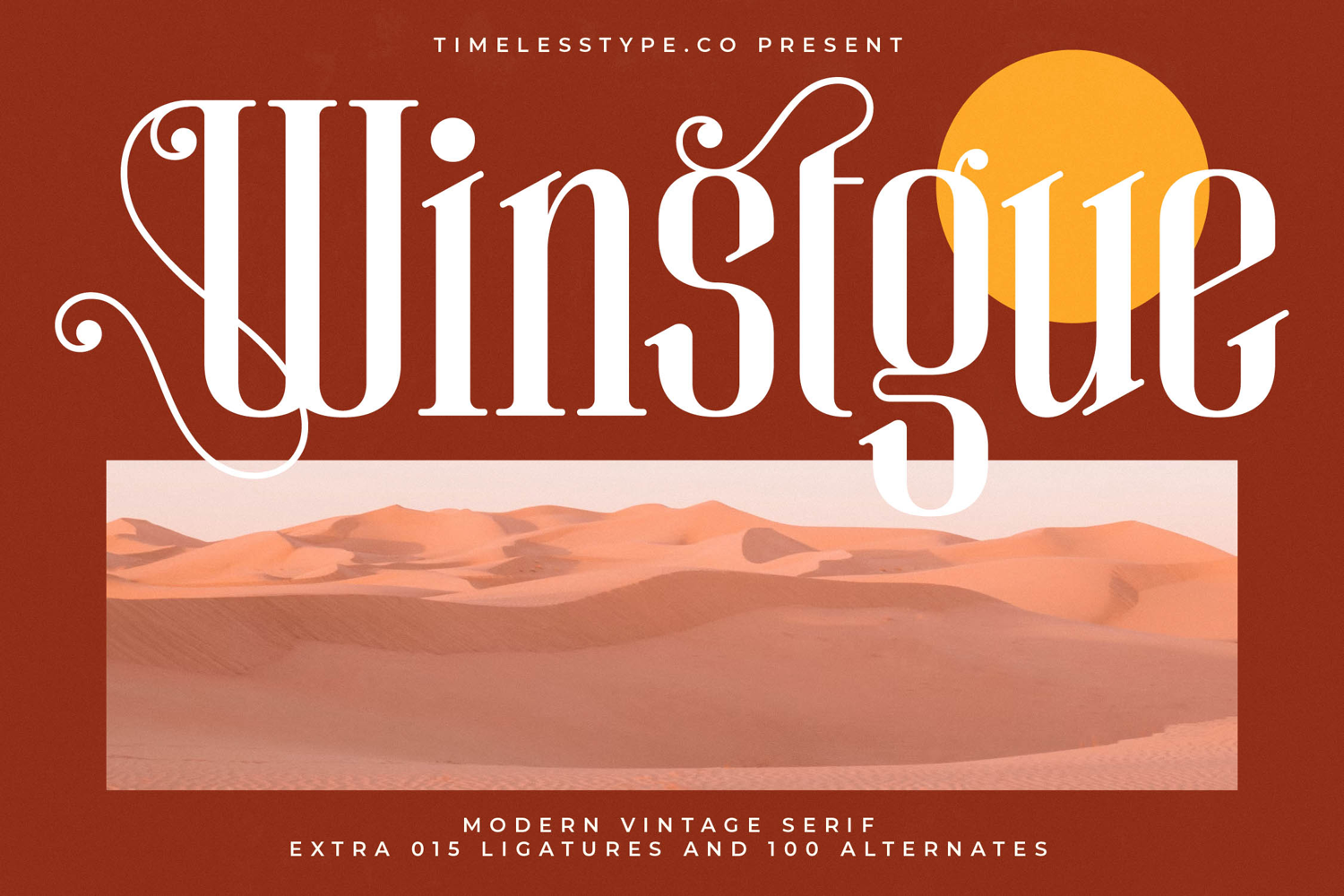
Winstgue - Modern Vintage Serif
Discover the essence of timeless elegance redefined with Font Winstgue - Modern Vintage Serif Serif Display. This captivating typeface masterfully blends the rich heritage of classic serifs with a contemporary aesthetic, featuring striking high-contrast letterforms and an inherent sense of sophistication. Its refined curves and bold presence make it an exceptional choice for any project aiming to convey a luxurious and premium brand identity.
Unlock unparalleled creative possibilities with Font Winstgue - Modern Vintage Serif Serif Display. Beyond its inherent beauty, this font is equipped with an extensive suite of design assets, including 15 elegant ligatures and 100 distinct alternates. These meticulously crafted features empower designers to sculpt truly unique headlines, distinctive logotypes, and bespoke branding elements that resonate with an air of exclusive artistry and versatile appeal.
Designed for the modern, interconnected world, Font Winstgue - Modern Vintage Serif Serif Display ensures your message transcends geographical boundaries. With its extensive multilingual support, Font Winstgue - Modern Vintage Serif Serif Display adapts seamlessly across global markets, making it incredibly versatile for international projects. This global compatibility empowers brands to maintain a consistent, high-end aesthetic for diverse audiences worldwide.
Font Winstgue - Modern Vintage Serif Serif Display is the definitive typeface for projects where impact and exclusivity are paramount. It is perfect for luxury branding, high-end packaging, editorial design, fashion campaigns, magazine layouts, and sophisticated event invitations. Elevate your visual narratives and ensure your brand leaves a powerful, unforgettable impression with this truly remarkable serif display font.